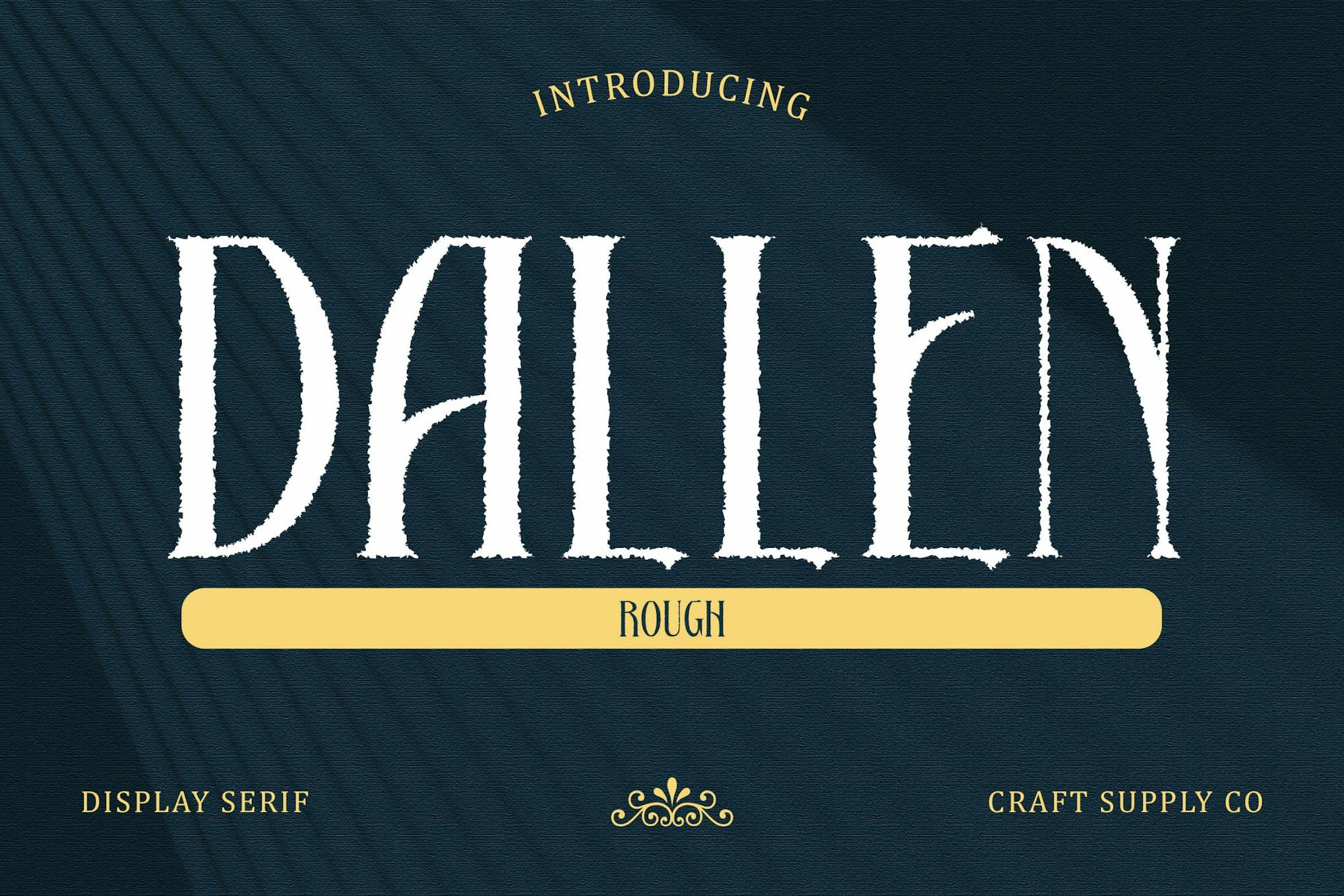
Dallen Rough Font
The Dallen Rough Font is perfect for vintage posters, distressed logos, grunge band merchandise, retro packaging design, weathered signage, craft beer labels, urban streetwear branding, and rustic restaurant menus.
What makes Dallen Rough Font so exciting is its authentic weathered texture that brings character and personality to every design project. This remarkable typeface captures the essence of worn vintage signage and hand-painted lettering, featuring carefully crafted distressed edges and rough textures that tell a story. The font's organic imperfections create visual interest while maintaining excellent readability, making it perfect for brands that want to convey authenticity, craftsmanship, and timeless appeal. Its rugged aesthetic instantly adds depth and dimension to designs, transforming modern projects with a nostalgic, handcrafted feel.
The Dallen Rough Font family includes comprehensive variations to meet diverse design requirements. The collection typically features multiple weights from Light to Bold, along with italic versions that maintain the distinctive rough texture throughout. Many versions include alternative characters, ligatures, and decorative elements that enhance the handmade appearance, plus extended character sets supporting multiple languages for international design projects.
The font's versatility shines in both digital and print applications, from website headers to packaging design. Its carefully balanced distression maintains legibility across different sizes while preserving the distinctive rough character that makes it so appealing. The thoughtful design ensures consistent performance whether used for large display text or smaller body copy.
Creative professionals across industries rely on this distinctive rough font for projects requiring genuine character and vintage appeal. Whether developing brand identities for artisanal businesses, creating marketing materials for craft industries, or designing merchandise for music bands, this font delivers the perfect combination of authenticity and professional quality that elevates any creative project.